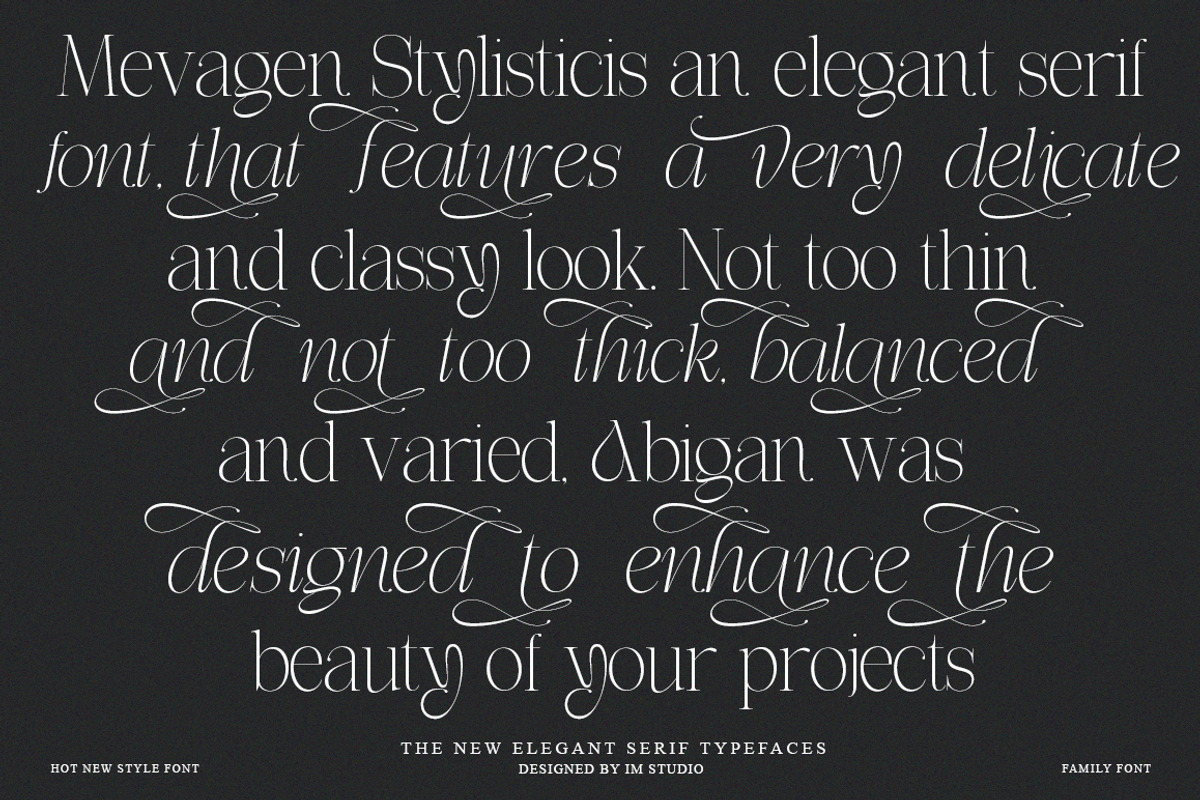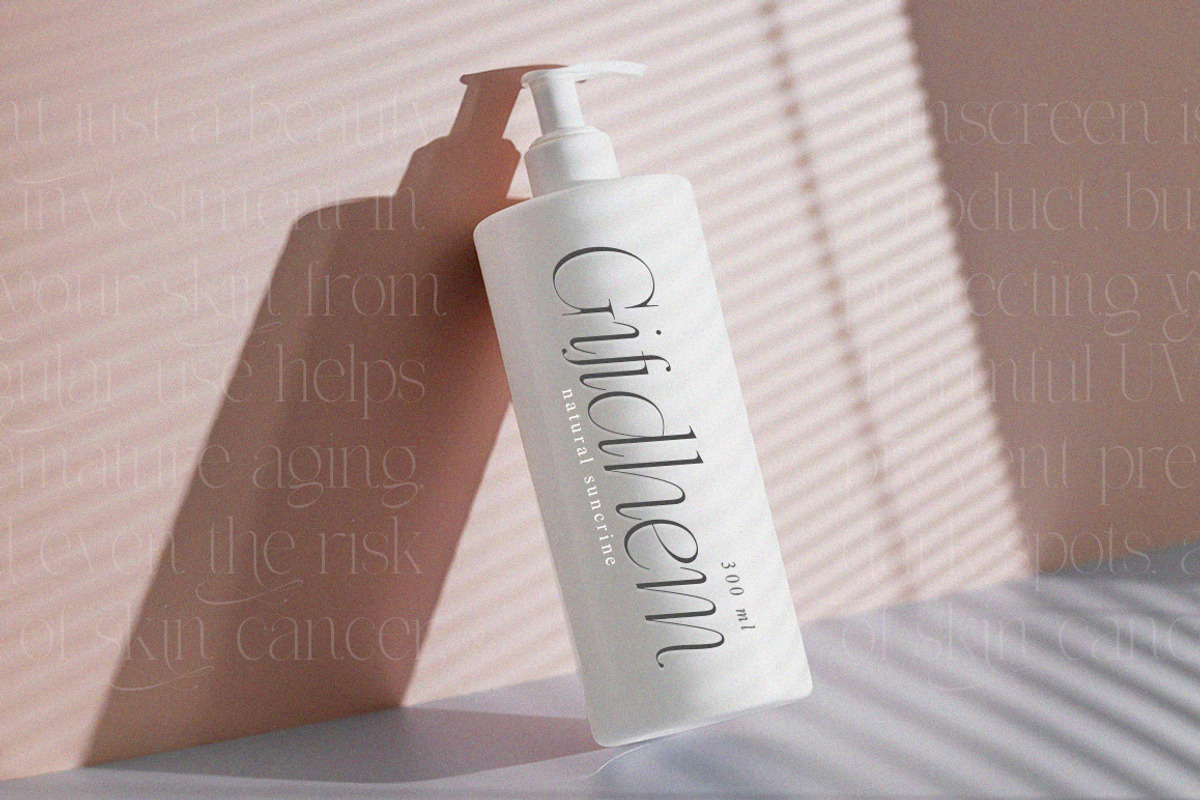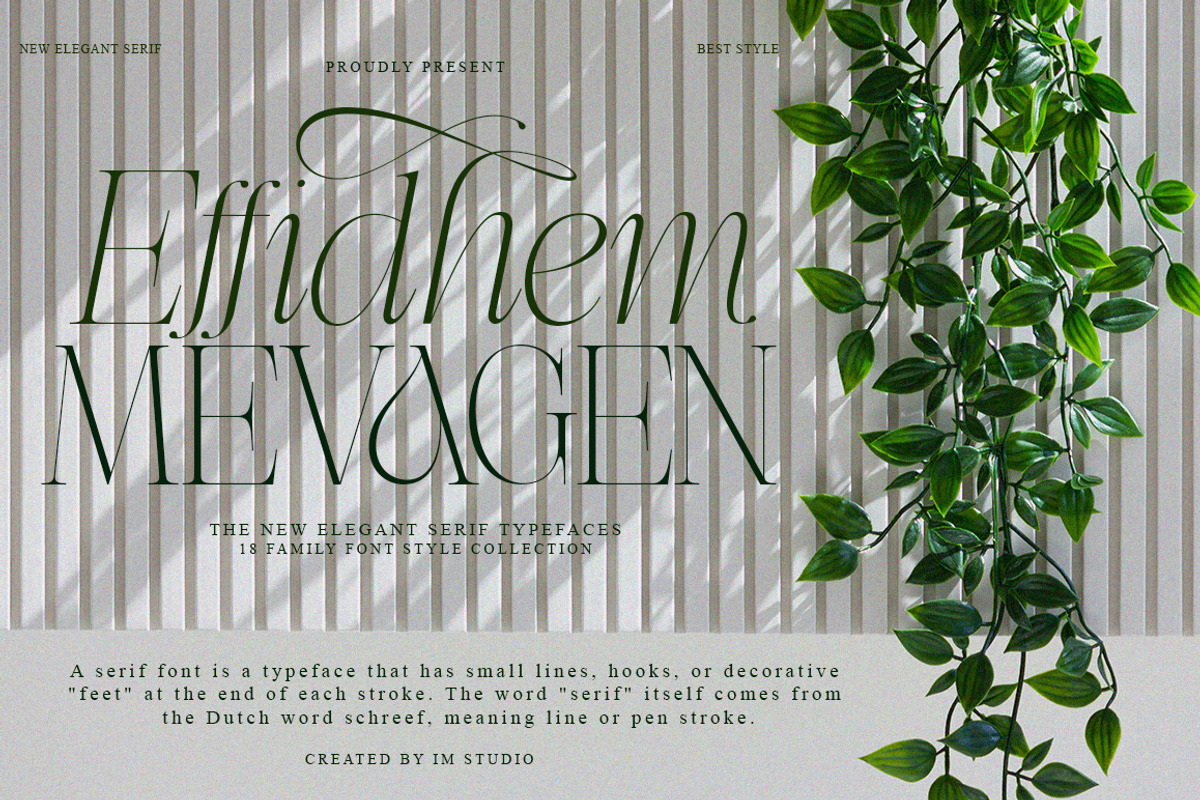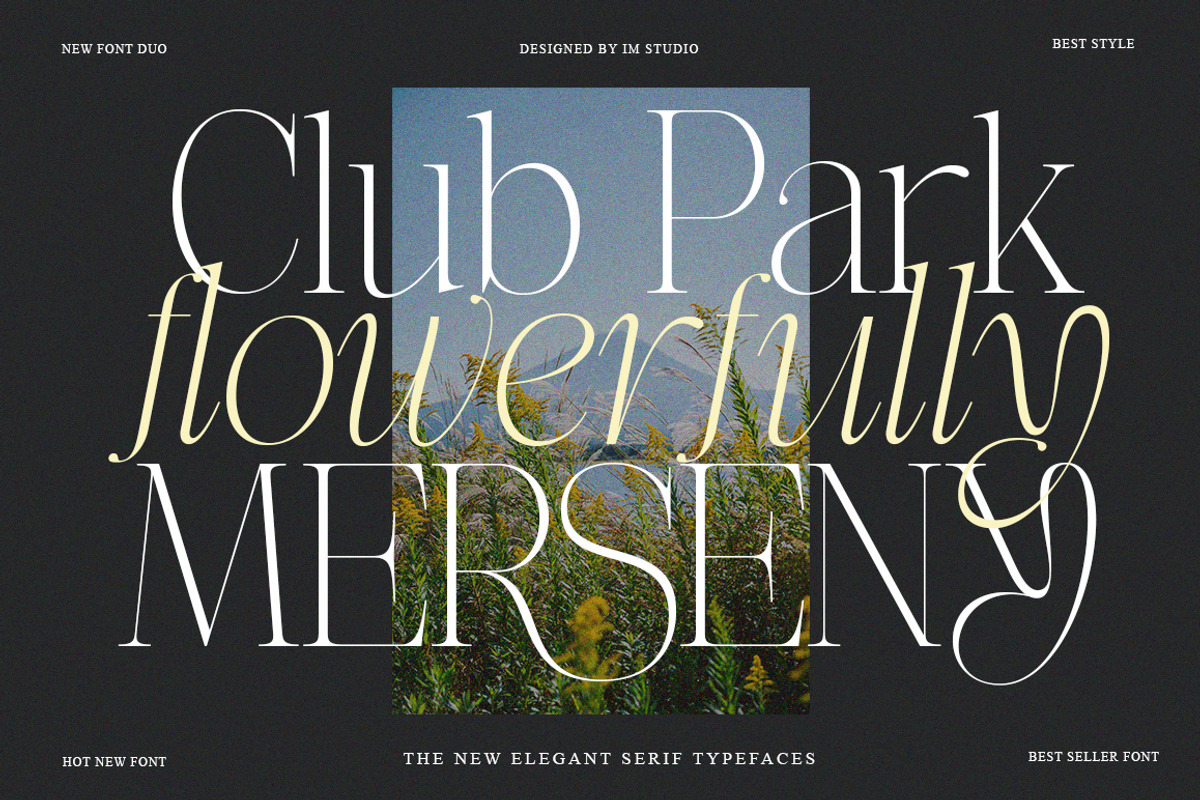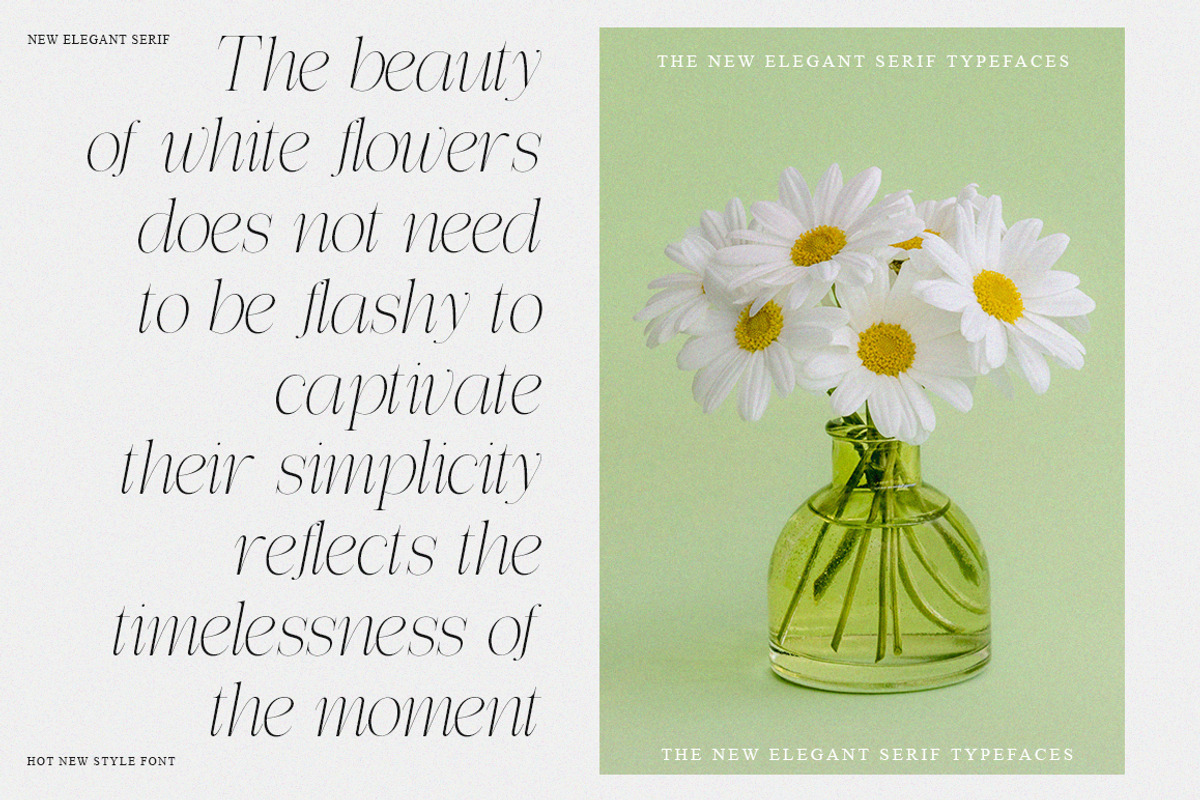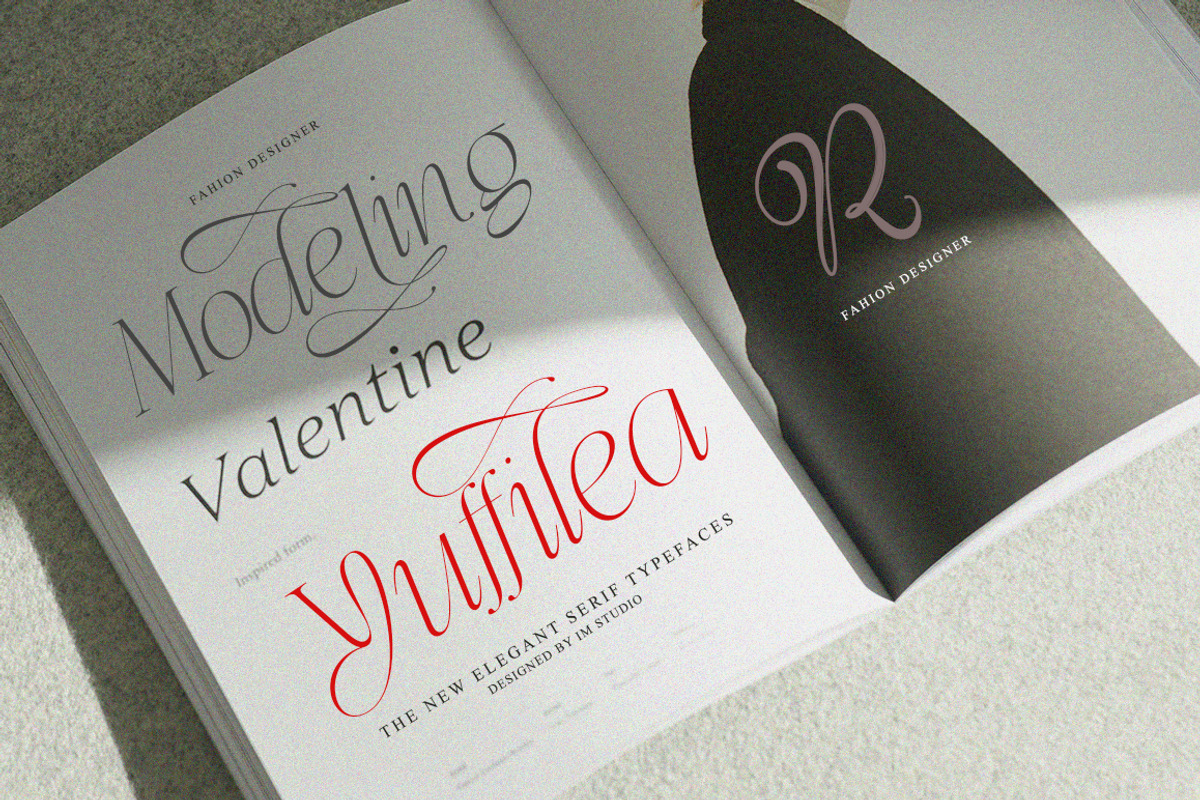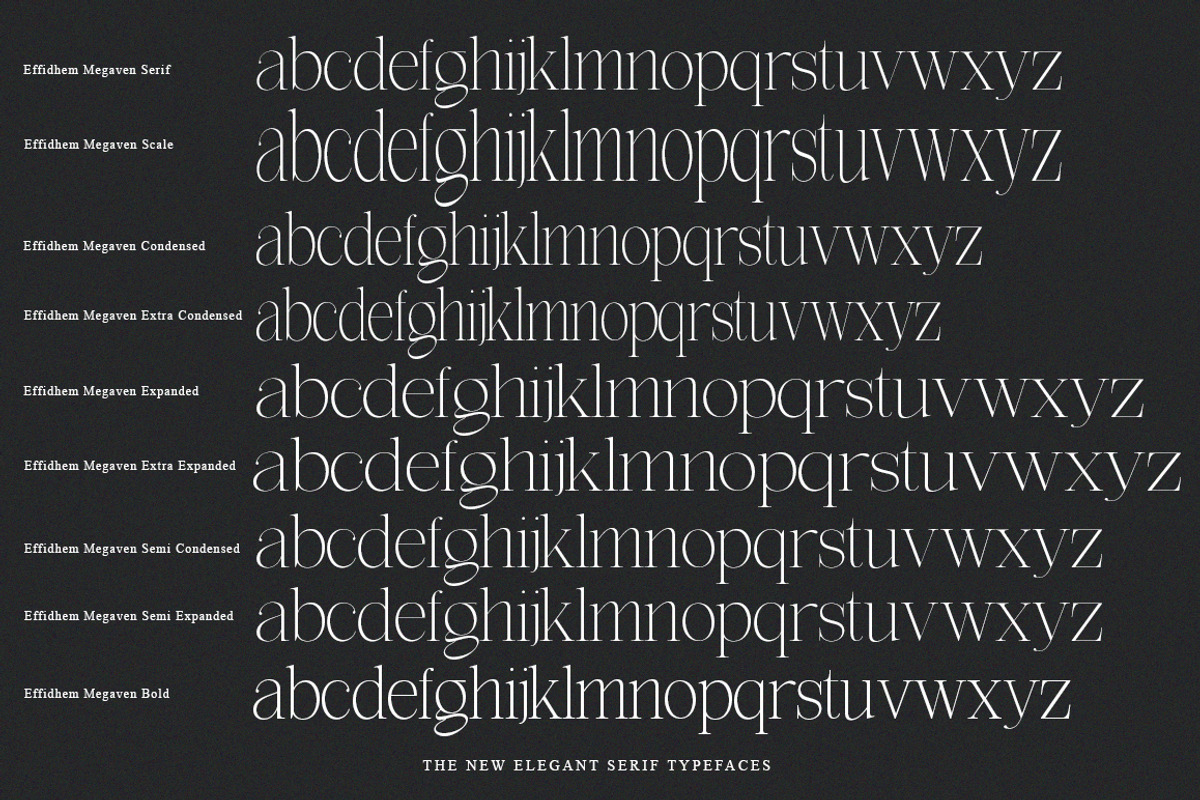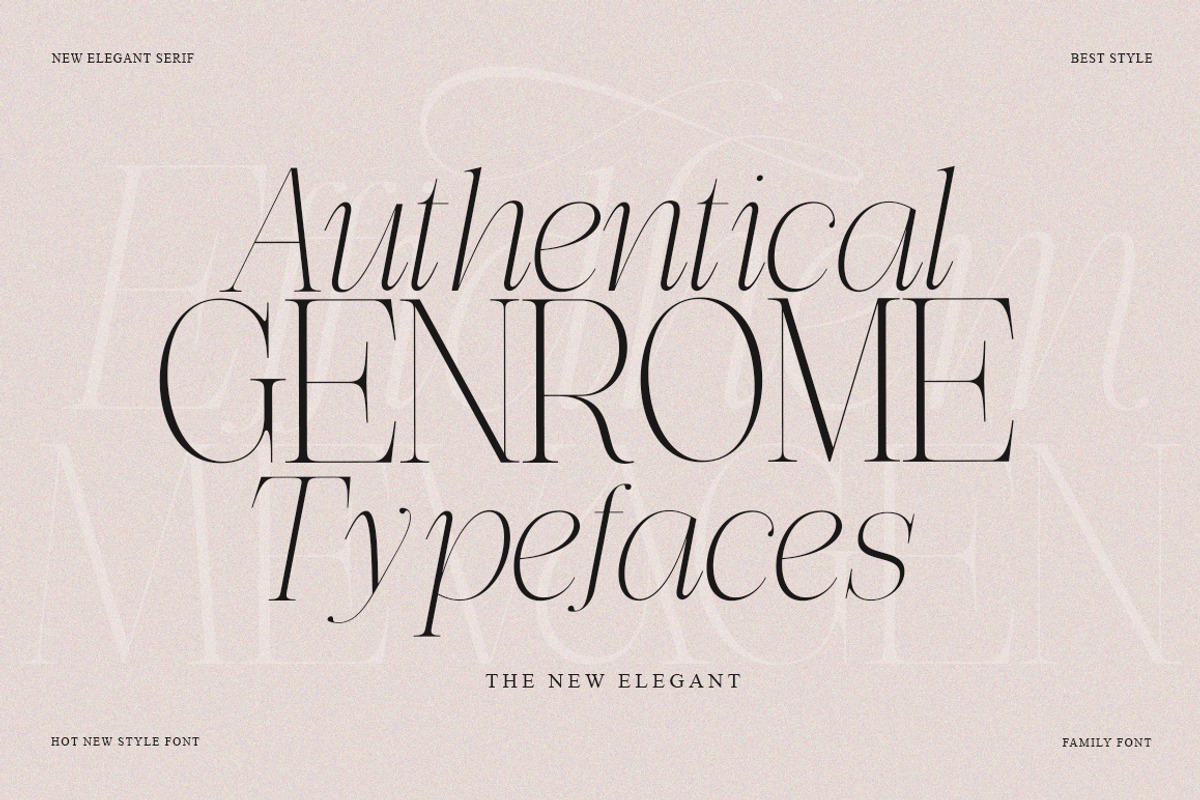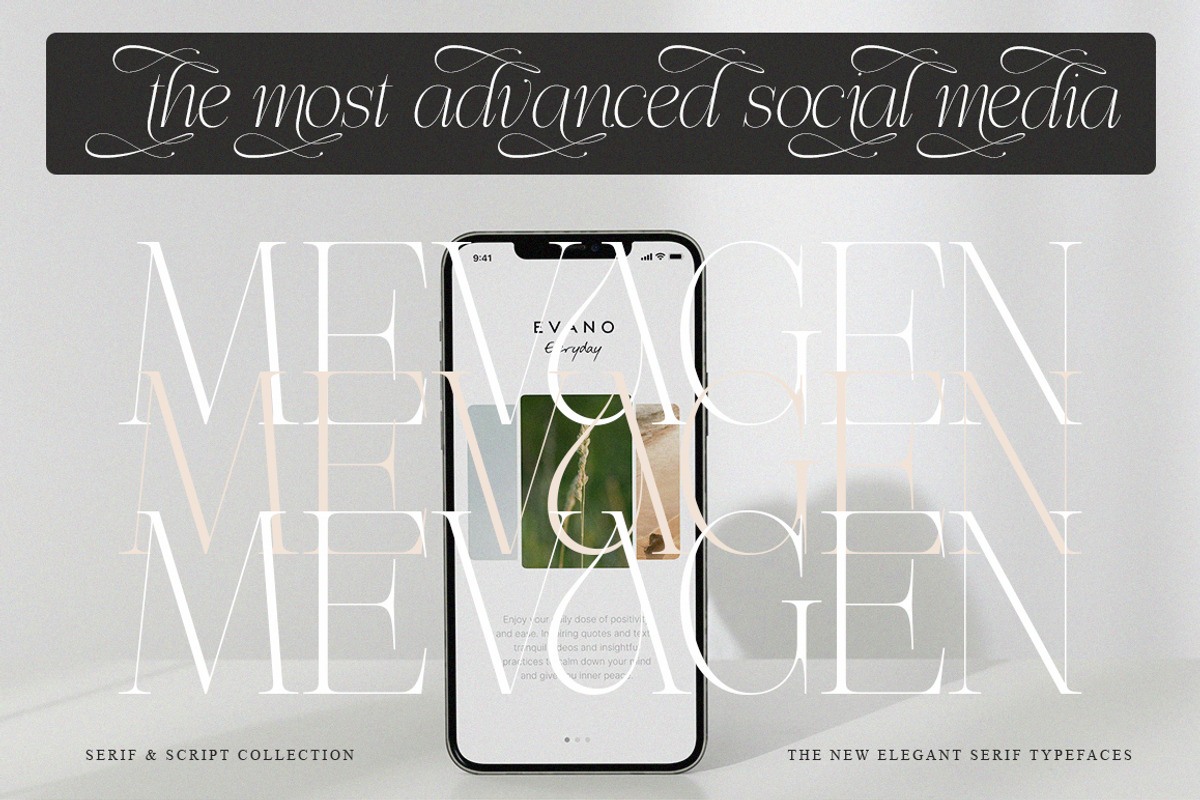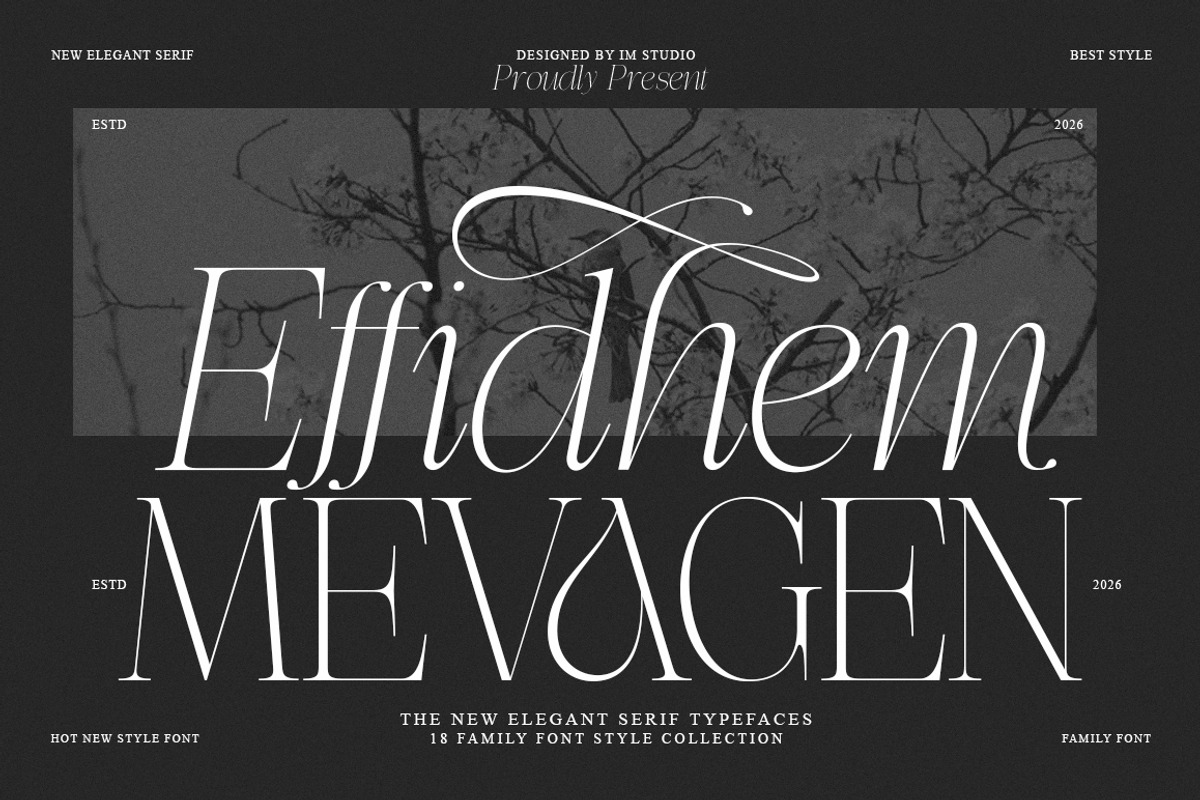
Effidhem Mevagen – Editorial Luxury Serif
Effidhem Mevagen is a collection of high-end serif fonts designed to convey a sense of classic luxury with a sharp touch of modernity. With its elegant silhouette and precise contrast, this typeface is a prime choice for projects that prioritize premium aesthetics and professionalism.
From chic editorial designs to luxury brand identities, Effidhem Mevagen provides a strong yet flexible character for a variety of visual needs.
Endless Typographic Exploration
Available in 18 highly curated styles, this font family lets you play with visual hierarchy in depth:
Classic & Bold: Regular, Bold, and Serif Bold.
Elegant & Dynamic: Full set of Italics (from Condensed to Expanded).
Space-Saving: Condensed, Extra Condensed, and Semi-Condensed for dense yet elegant headlines.
Grand & Spacious: Expanded, Extra Expanded, and Semi-Expanded for a cinematic and exclusive look.
Identity Branding: Fashion logos, beauty labels, and luxury hotel designs.
Editorial Design: Magazine layouts, book covers, and lifestyle articles.
Invitation Design: Add a touch of class to wedding invitations or formal events.
Digital Advertising: Sharp, easy-to-read typography for high-end social media campaigns.
OpenType Features: Smooth kerning, beautiful ligatures, and stylistic sets.
Multilingual Support: Full character set to reach a global audience.
Character Set: Uppercase letters, numbers, punctuation, and symbols.